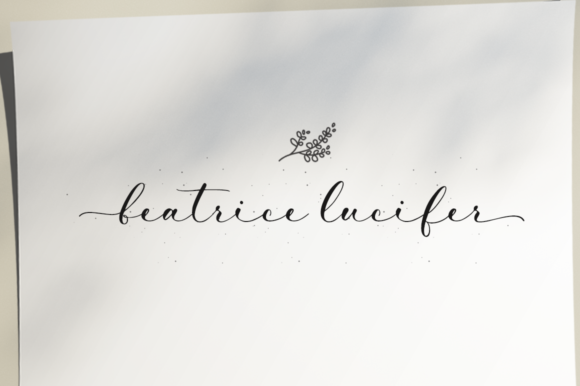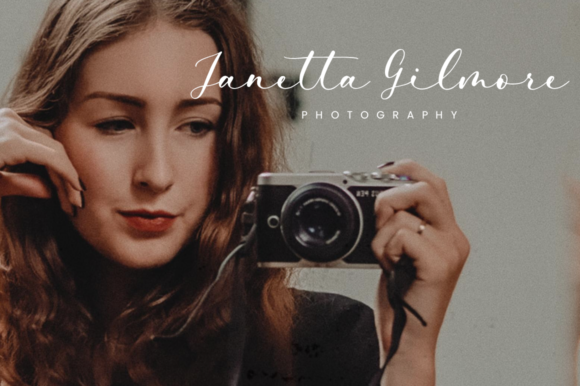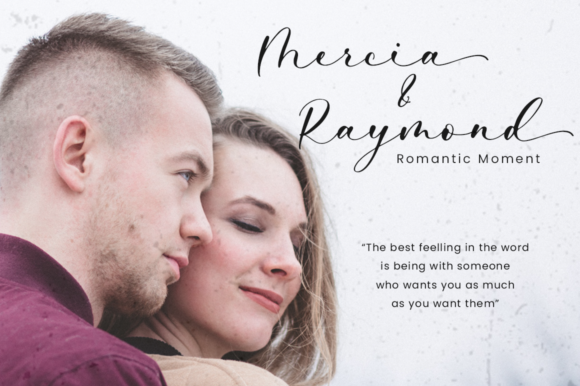
The Magic of Barlista Font: A Designer’s New Best Friend
I still remember the time I was working on a wedding invitation project, and my client asked for a font that was elegant, sophisticated, and utterly unique. I scoured the internet, tried out dozens of fonts, but nothing seemed quite right. That was until I stumbled upon Barlista Font. 💕
It was love at first sight! The delicate calligraphy, the flowing lines, and the whimsical touches all combined to create a font that was both beautiful and versatile. I knew right then and there that Barlista Font was going to be my new go-to for all sorts of design projects.
What I Love About Barlista Font ✨
- 💫 Beautiful, delicate calligraphy that’s perfect for elegant designs
- ✅ Highly versatile: use it for branding, invitations, stationery, weddings, social media posts, and more
- 🎨 Exquisite attention to detail: the font is full of subtle flourishes and nuances that make it stand out
- 📸 Perfect for photography and watermark designs, thanks to its elegant and understated style
Small Quirks and Limitations 🤔
- ⚠️ Some users may find the font a bit too delicate for certain design applications (e.g., bold or large-scale designs)
- 🤔 Limited availability of certain characters and glyphs (although this can be addressed with OpenType features)
A Practical Guide to Using Barlista Font
The Story Behind Barlista Font
Barlista Font was created by a talented designer with a passion for calligraphy and elegant typography. Inspired by the flowing lines and delicate curves of traditional calligraphy, the designer set out to create a font that was both beautiful and versatile. The result is Barlista Font, a stunning calligraphy font that’s perfect for a wide range of design applications.
Q: Is Barlista Font suitable for large-scale or bold designs?
A: While Barlista Font is incredibly versatile, it may not be the best choice for very large-scale or bold designs, due to its delicate nature.